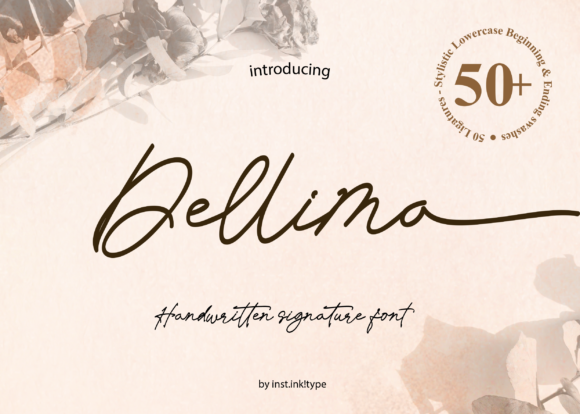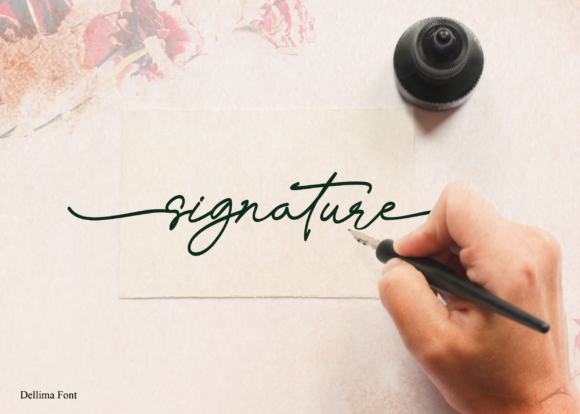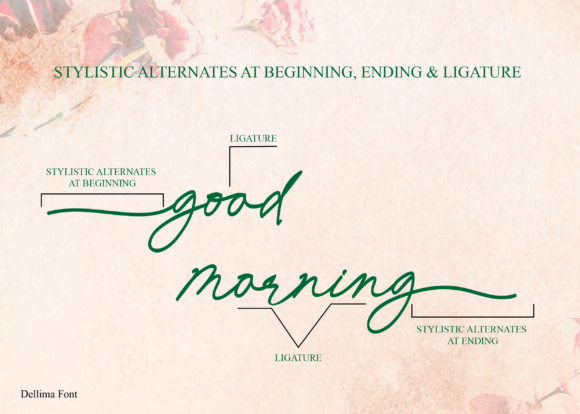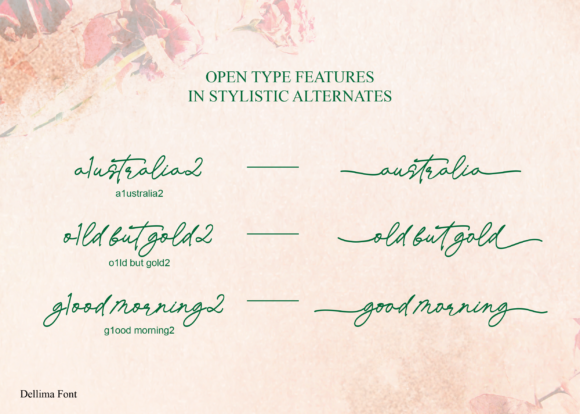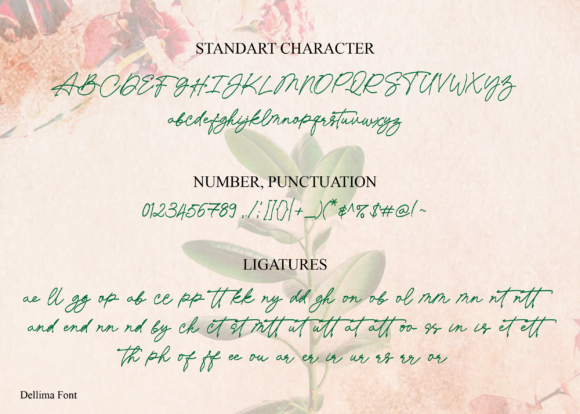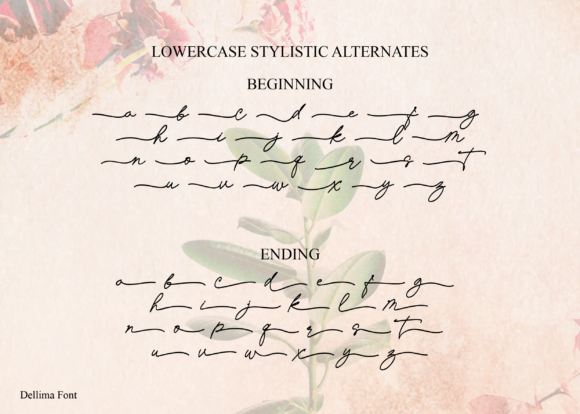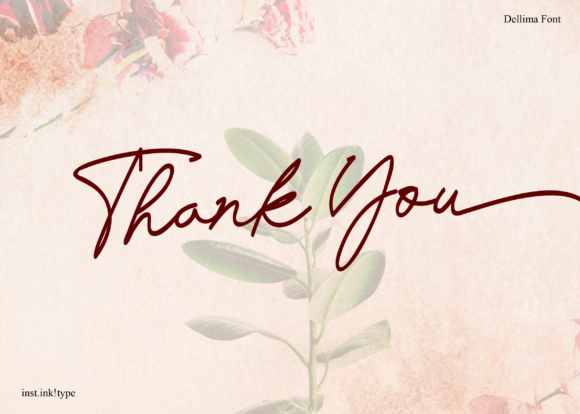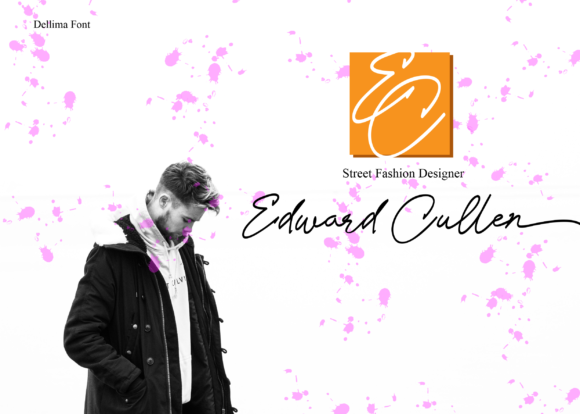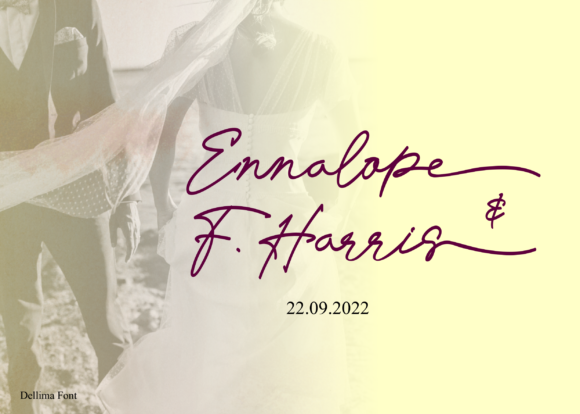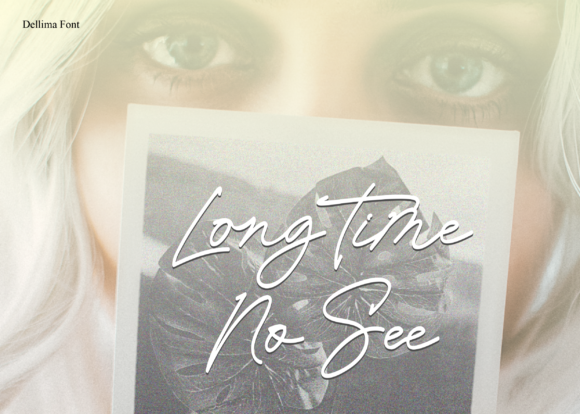
Dellima Font
About Dellima Font
Dellima is a flowing handwritten font. It has a casual and stylish look that will elevate your designs to the highest level. This amazing font is best suited for magazines, logos, greeting cards, invitations and much more!